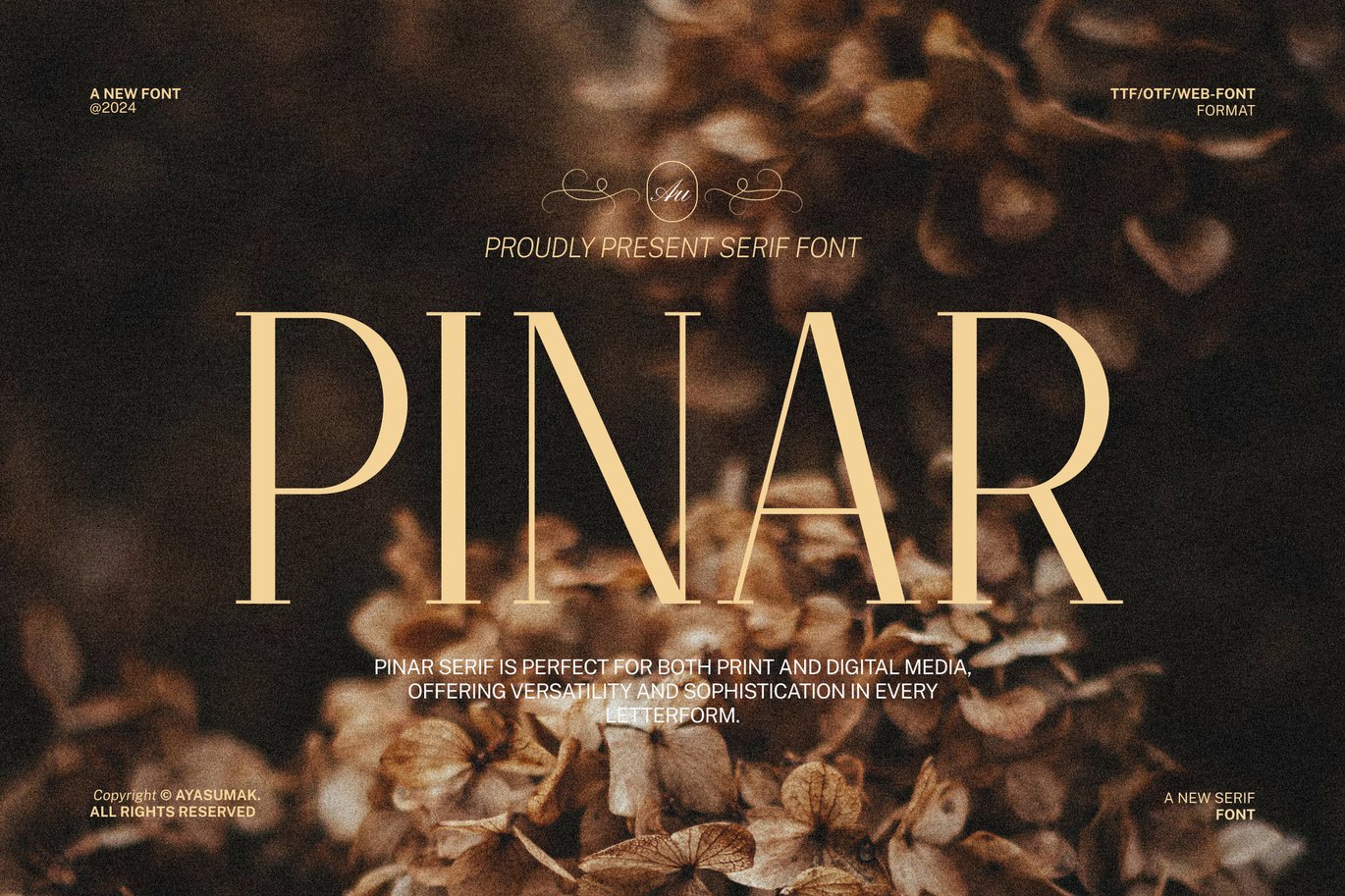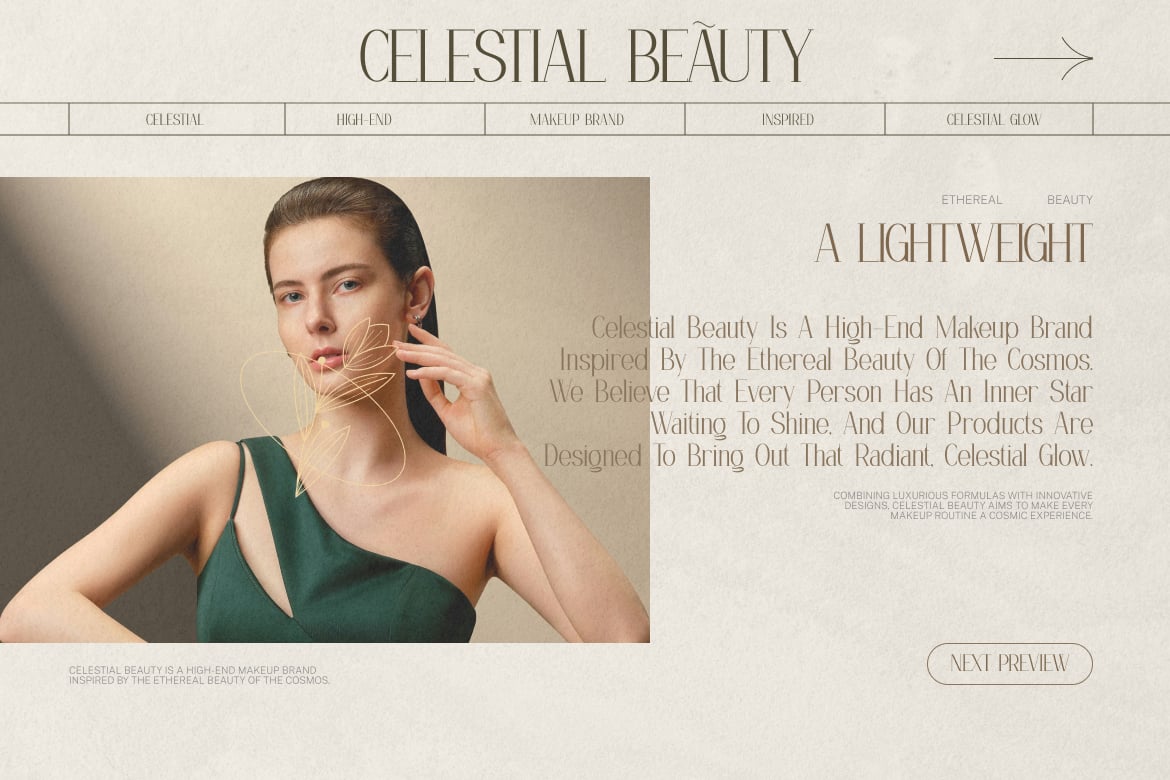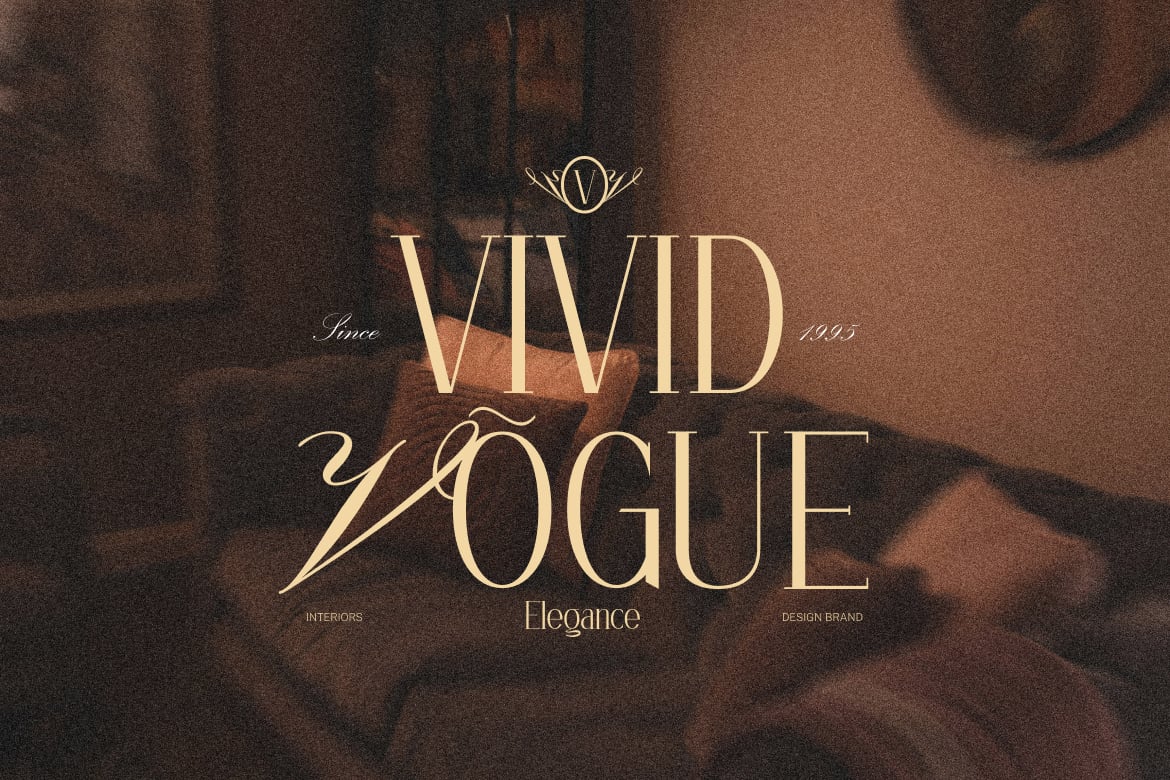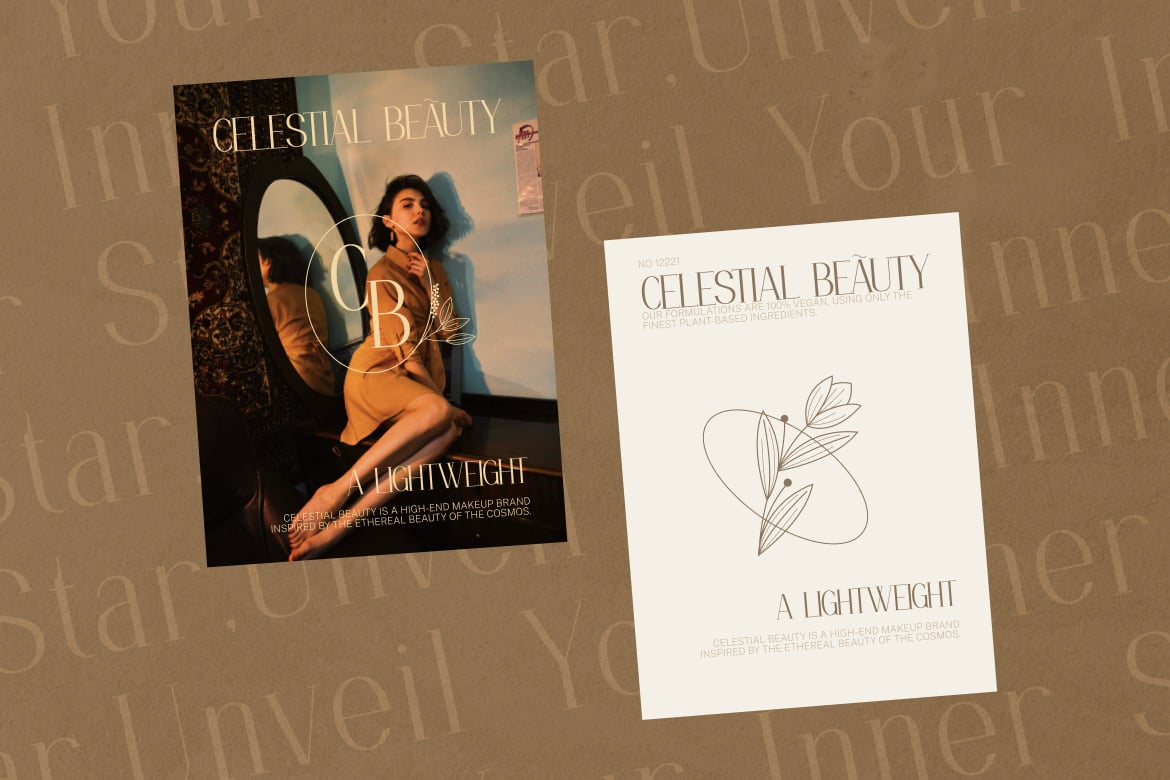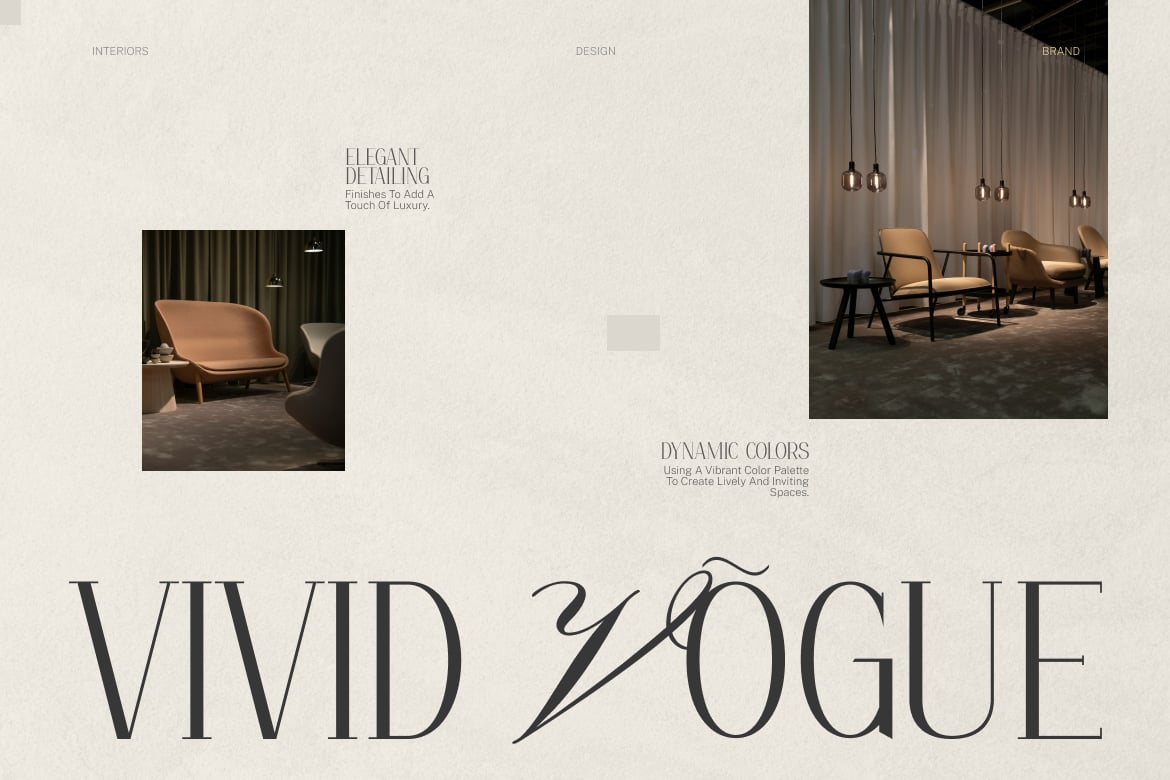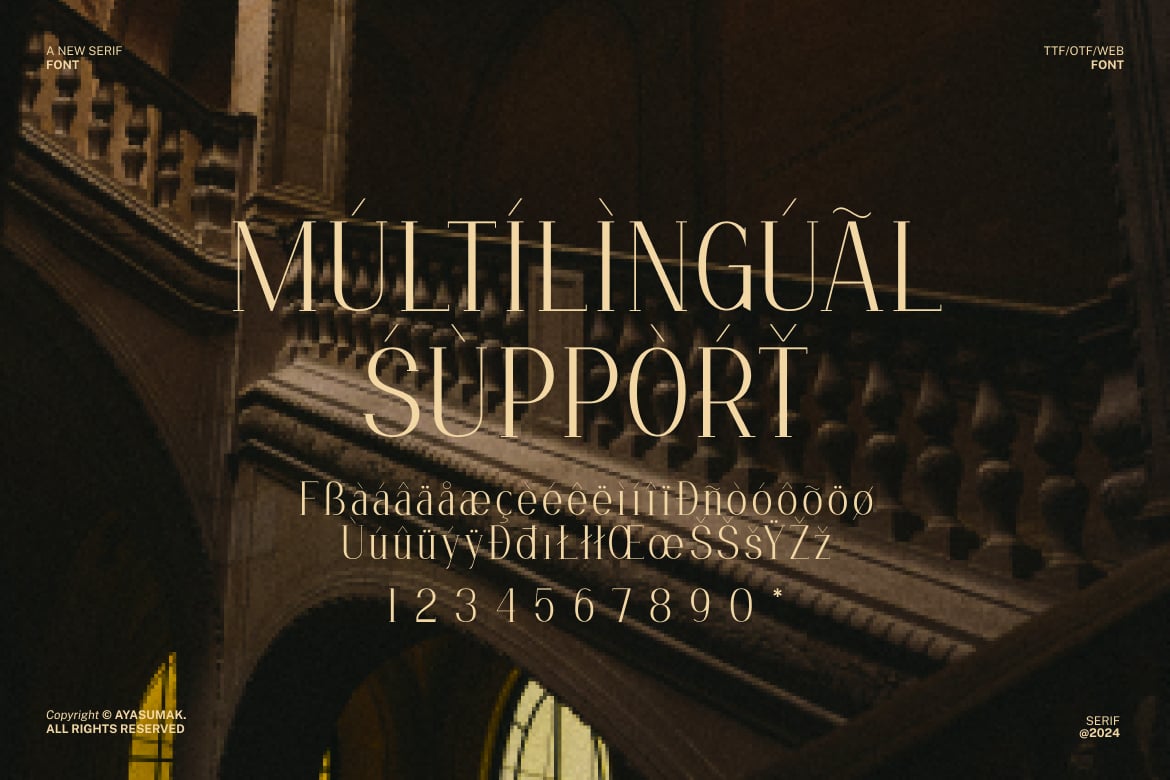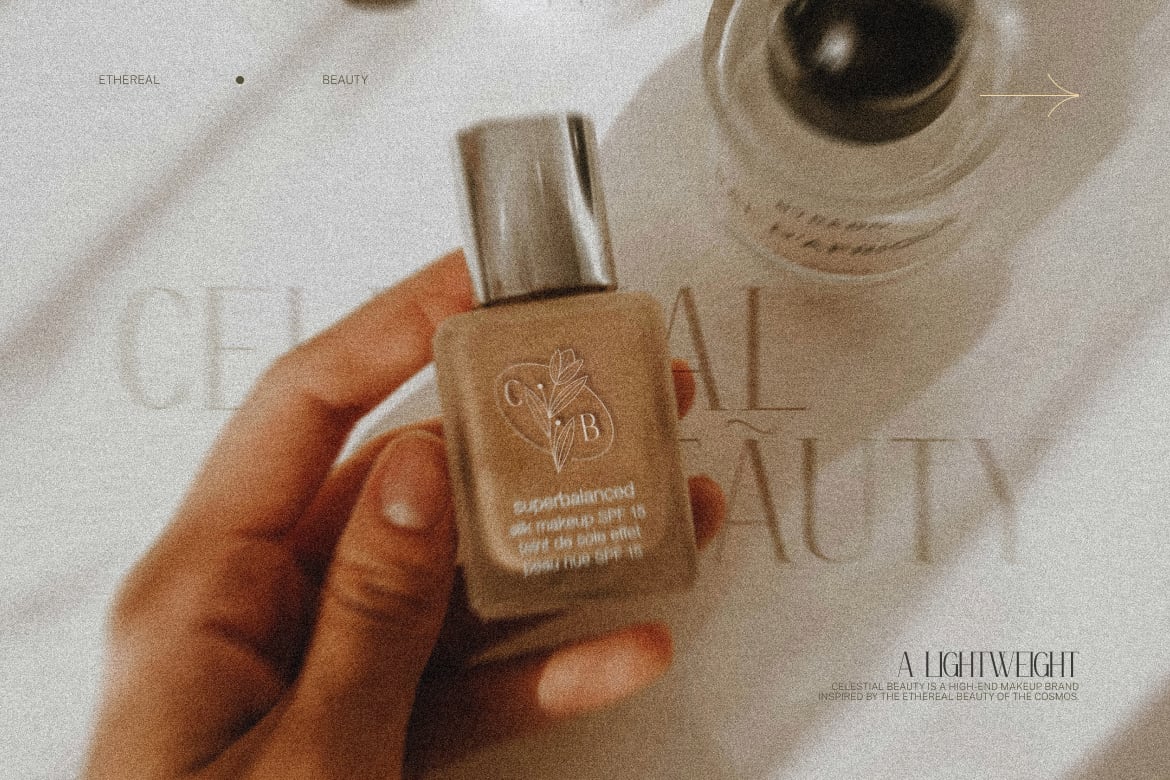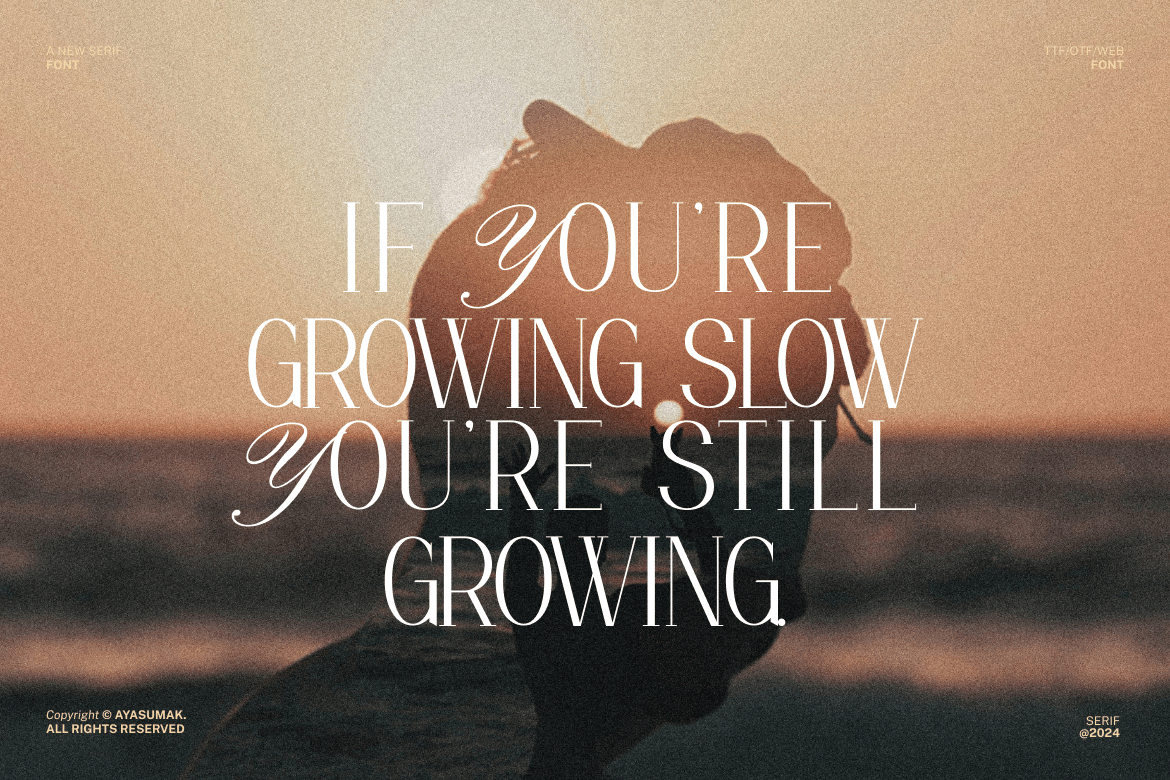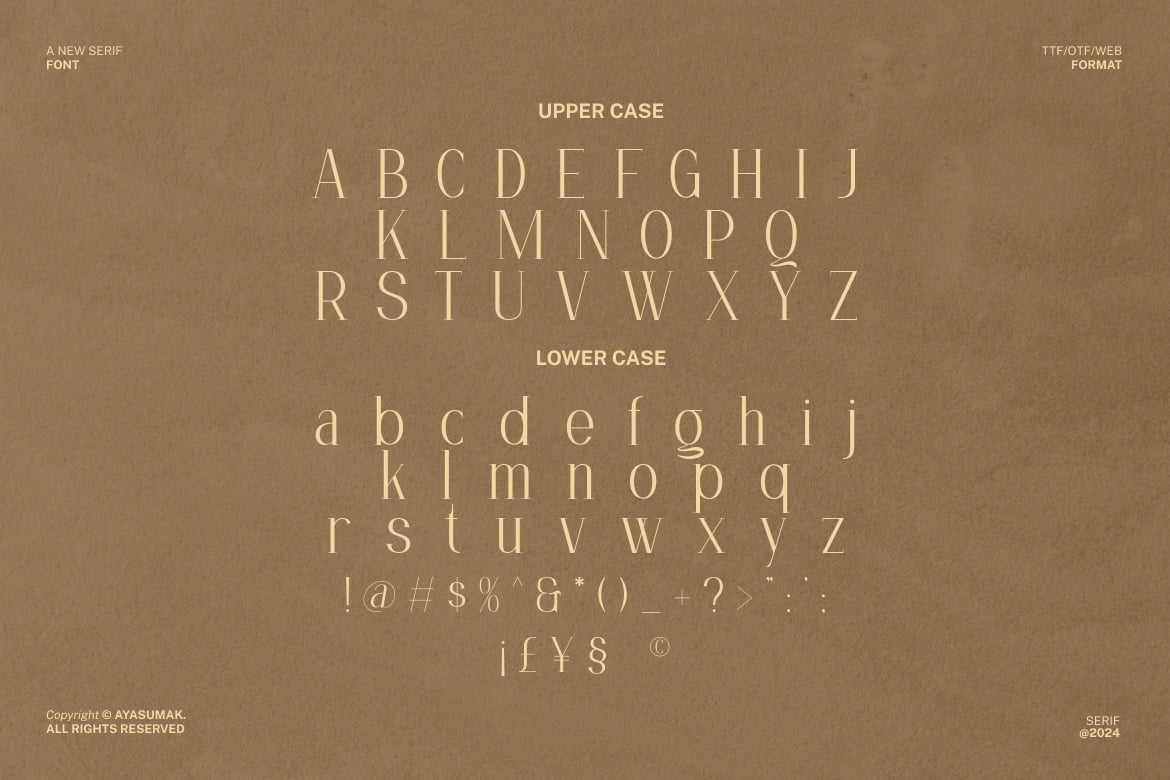
Pinar – Beauty Minimal Luxury Font
Introducing Pinar – Beauty Minimal Luxury Font – a Modern Professional Typeface excellent used for Heading or Title, Logotype, Merchandise, Clothing, Magazine, Food & Beverages, Beauty, Skincare Product and many more.